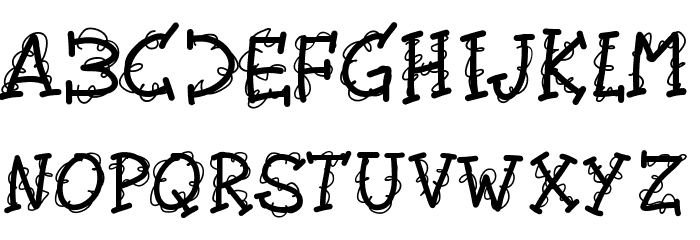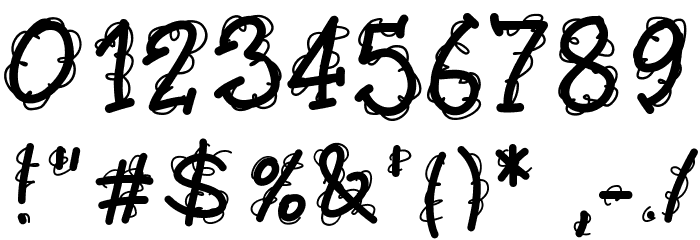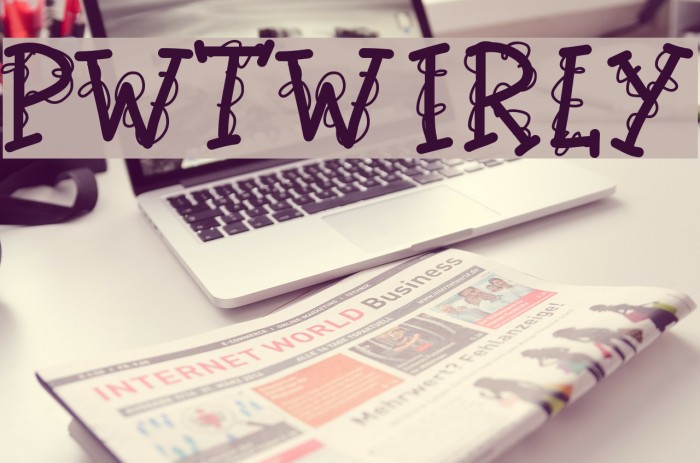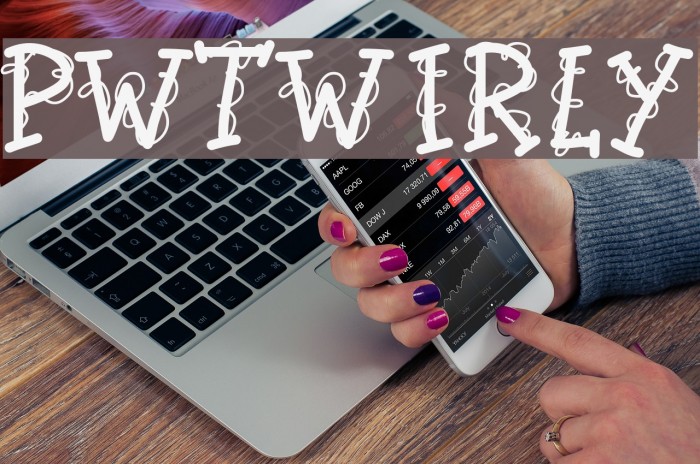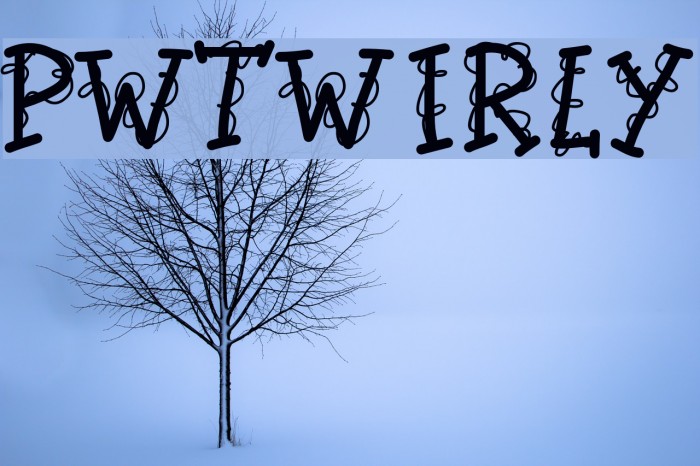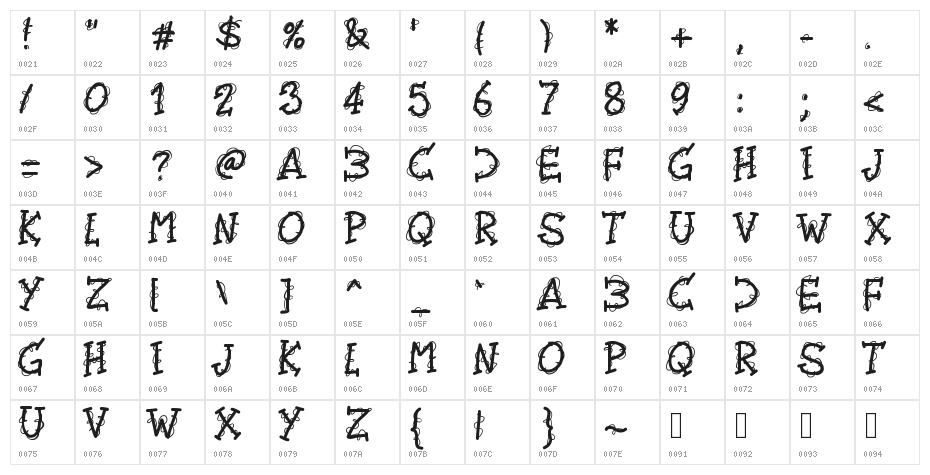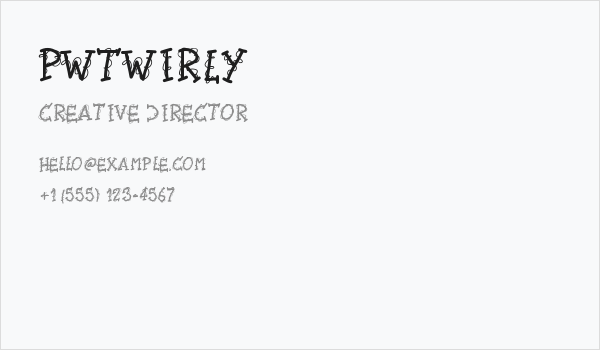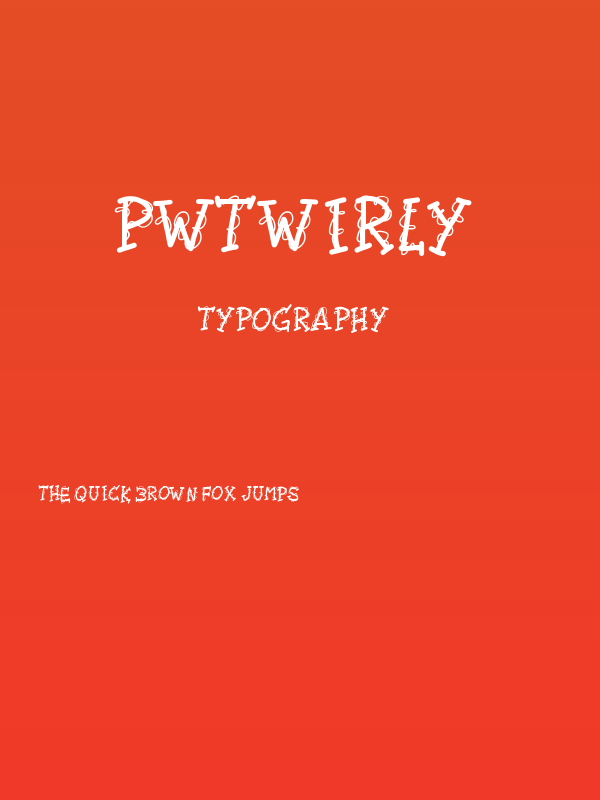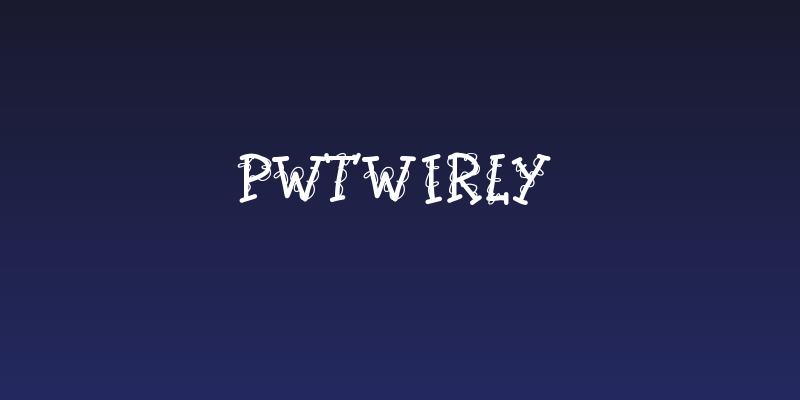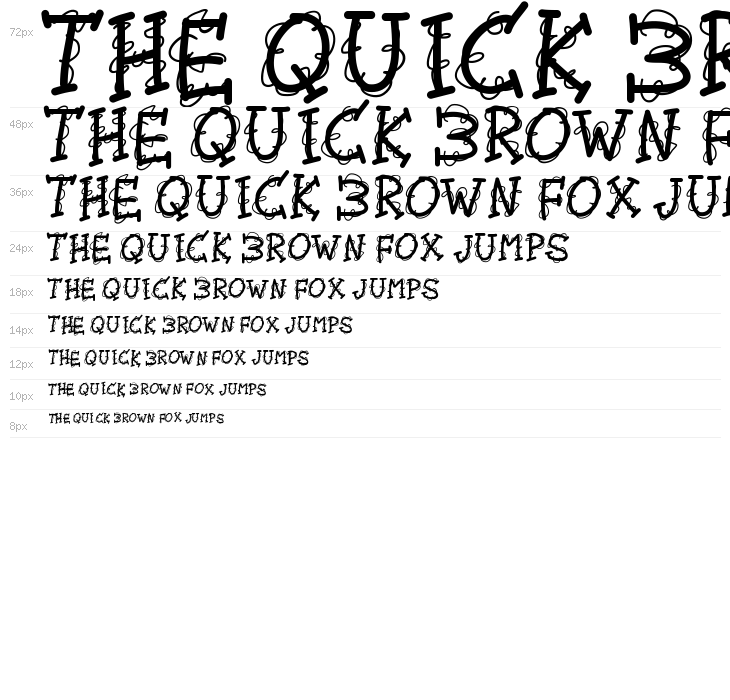
PWTwirly Font
This font features a whimsical and decorative style, characterized by its playful, swirling embellishments that wrap around each letter and number. The strokes are bold and dynamic, creating a sense of movement and energy. The intricate loops and curls add a unique flair, making it stand out as a statement piece. Despite its decorative nature, the characters remain legible, with a consistent structure that ensures readability. The font's artistic design is ideal for creative projects that require a touch of elegance and fun.
A whimsical, decorative font with swirling embellishments and bold strokes.
- Proposed Projects: Ideal for invitations, greeting cards, posters, and branding projects that seek a playful and artistic touch.
- Use Case: Headlines, Logos, Invitations